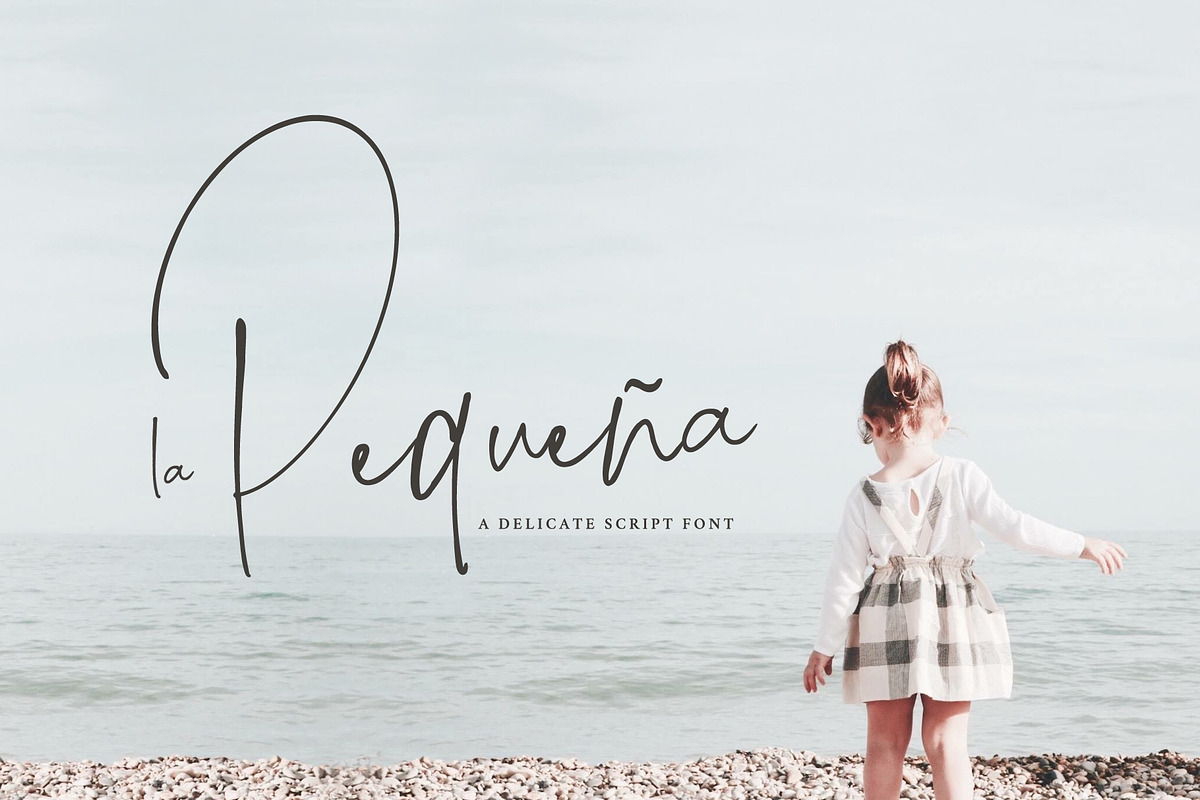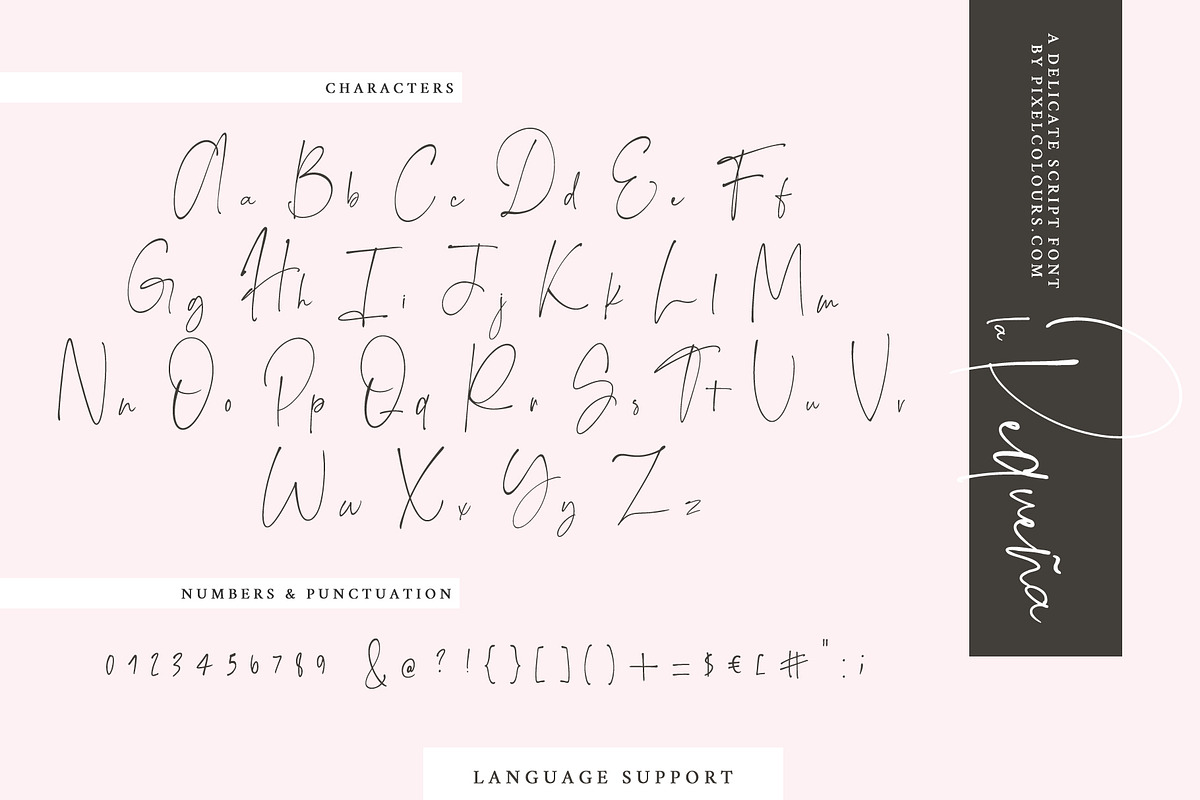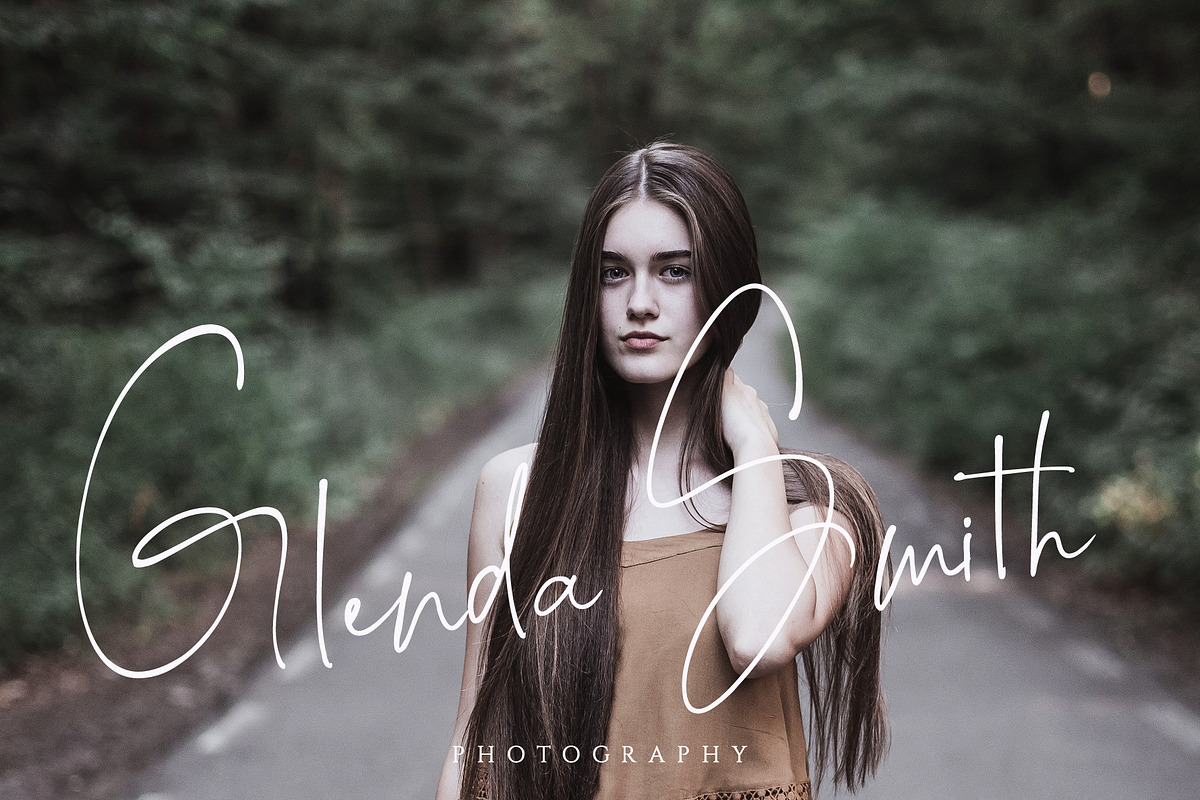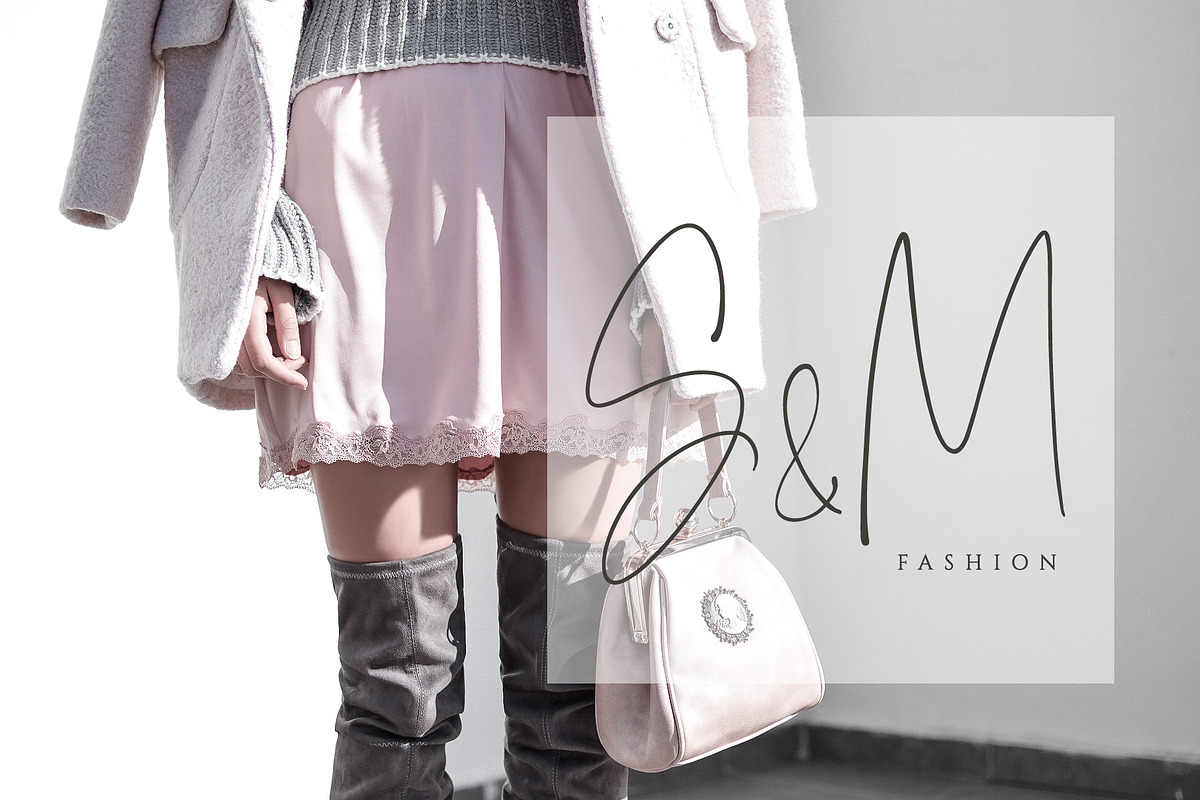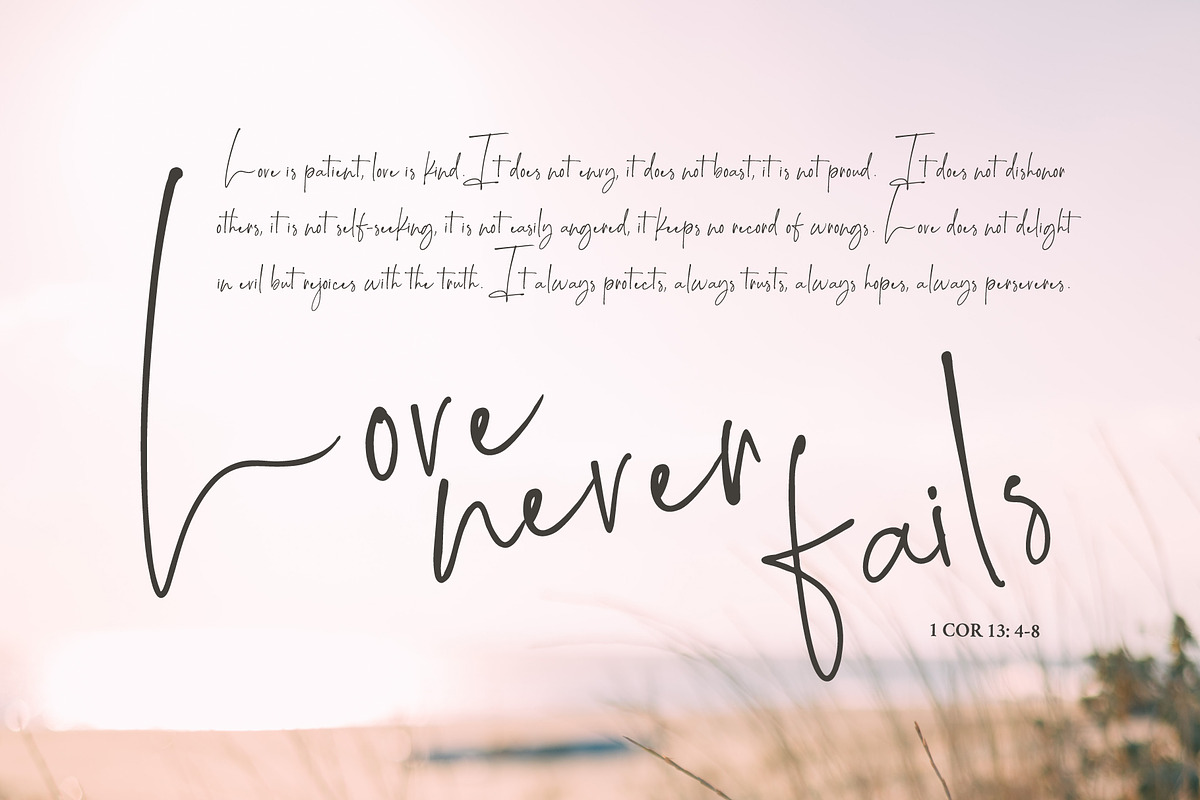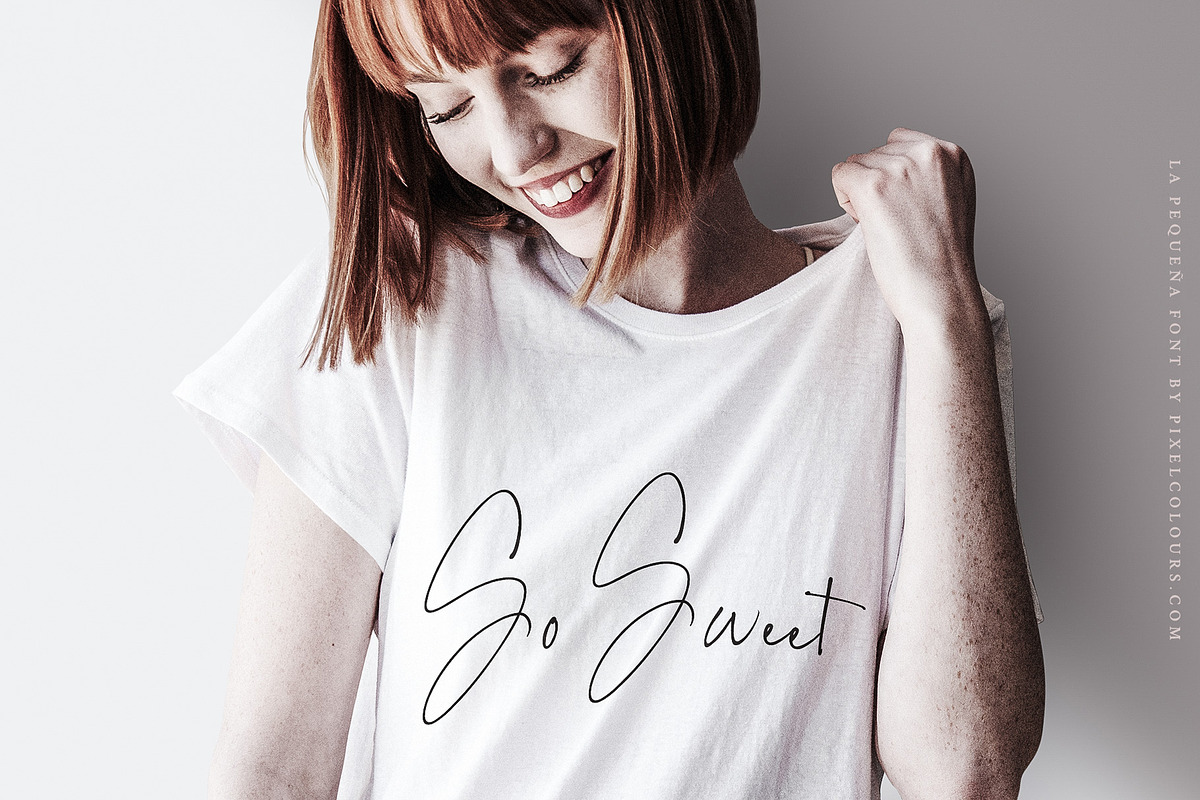
La Pequena Signature Font
A modern signature font font with a delicate style, looks great in big texts and as a display font.
La Pequena Signature Font by pixelcolours fits naturally into Branding, posters, packaging, typography.